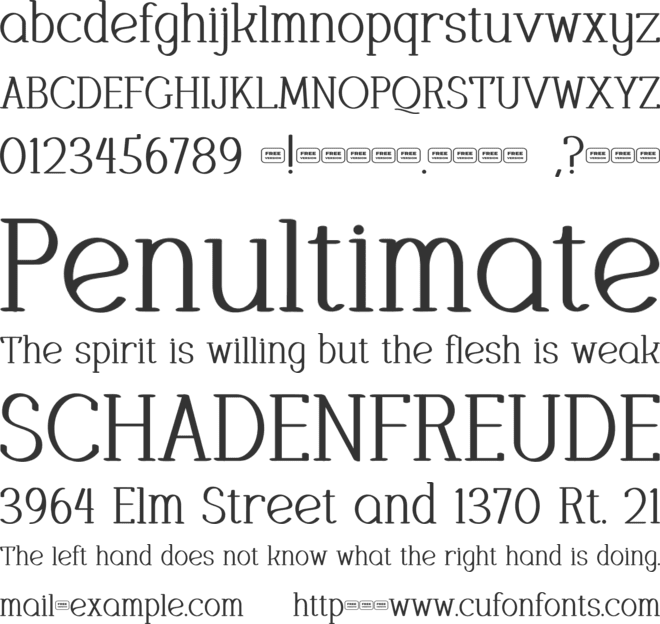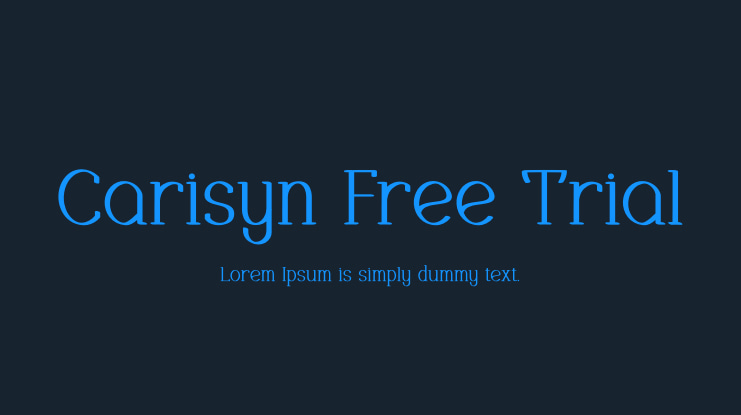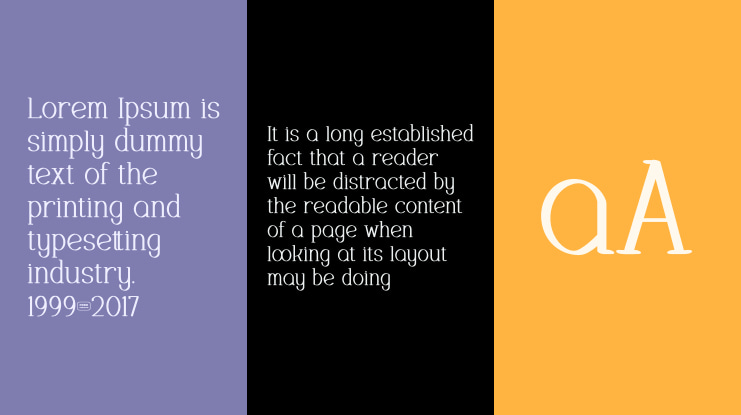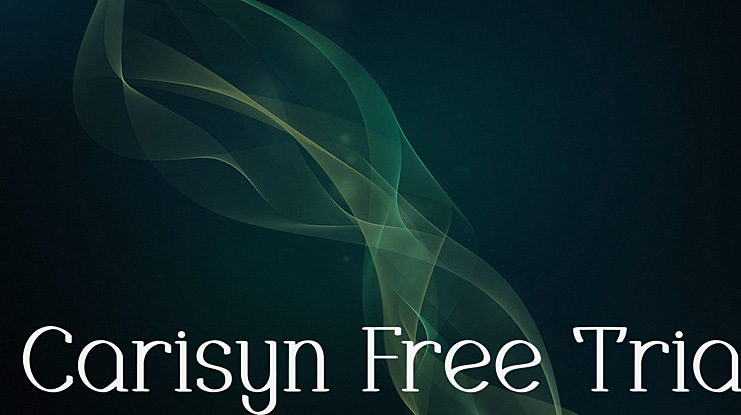
Carisyn Free Trial Font
Carisyn is a casual looking serif font, that features a simple and minimalist feel.
This font will brighten up each of your designs. The only limit is your imagination!